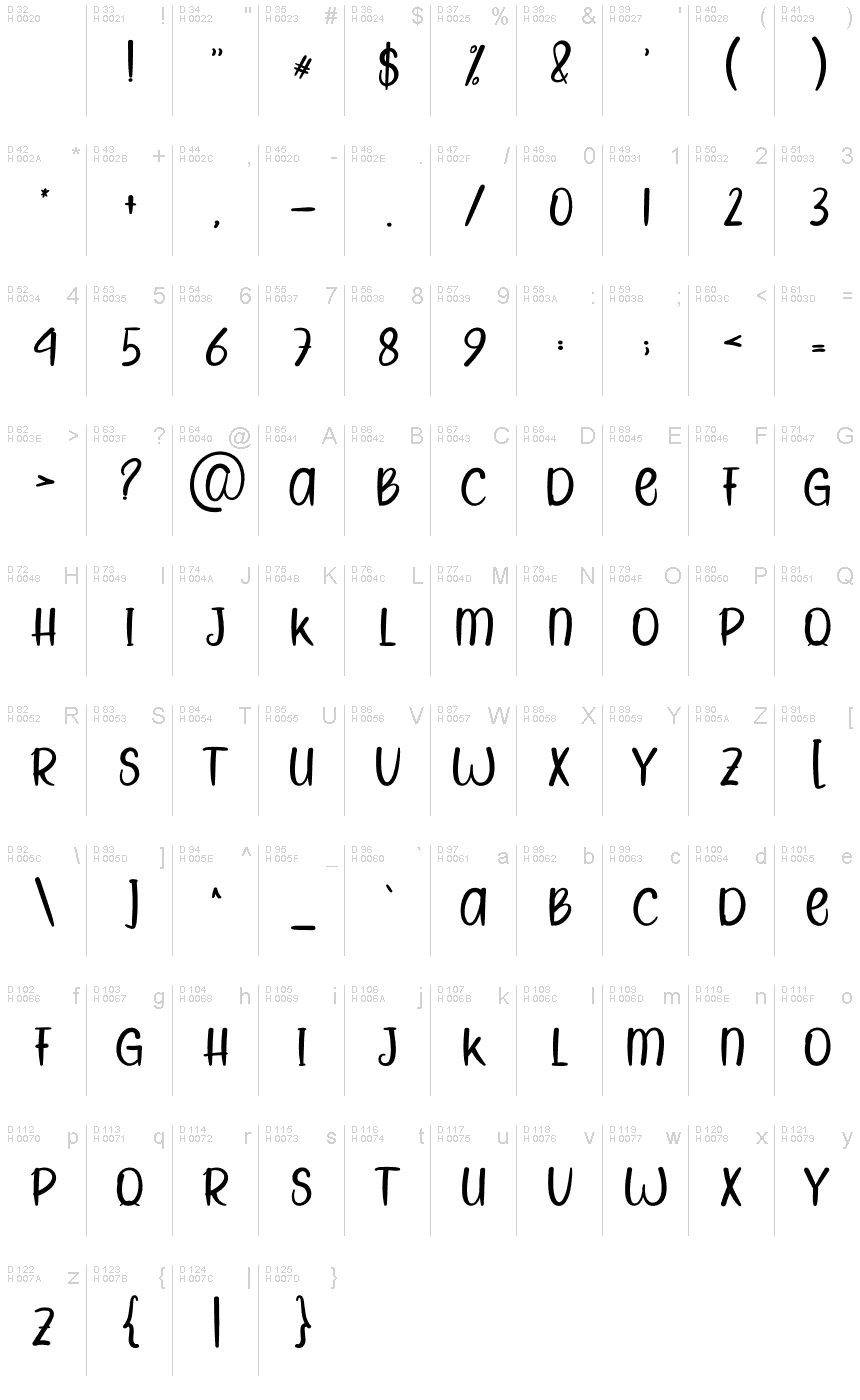
Trio
Trio, designed by Etik Fatimah, is a captivating brush-style font that exudes a blend of casual charm and artistic flair. With its handcrafted aesthetics, Trio boasts an authentic brush stroke texture that adds a personal touch to any design project. The spontaneous and energetic letterforms convey a sense of freedom and creativity, making it an excellent choice for projects that require an approachable yet distinctive typeface.
The irregularities in stroke width and the natural flow of the characters give Trio a dynamic look that is perfect for branding, advertising, social media graphics, and packaging where personality is key. Its bold presence also lends itself well to impactful headlines or expressive statements in editorial designs.
Embracing versatility without sacrificing style, Trio stands out with its ability to bring warmth and liveliness to both digital screens and printed materials. Whether you're looking to inject some spirited character into your work or aiming for a design that feels genuinely hand-drawn, Trio is adept at turning the everyday into something memorably unique.